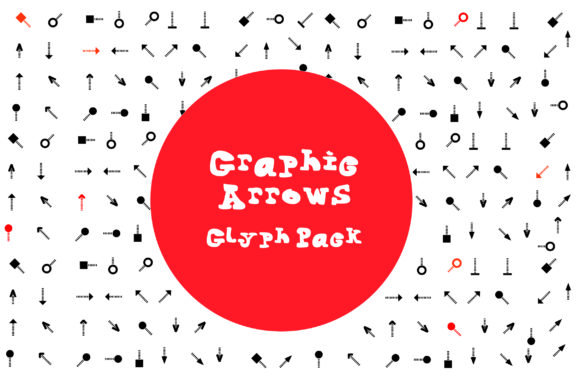
The Power of Visual Storytelling: Unlocking Design Potential
Have you ever stared at a blank page, waiting for that elusive spark of creativity to strike? The frustration is real, but what if you had the perfect tool to set your imagination ablaze? For designers, finding the right font can be the difference between a good design and a great one. That’s where BM Graphics – Graphic Arrows Glyph Font comes in – a game-changing dingbats font packed with an incredible array of arrows.
This unique font is more than just a collection of shapes; it’s a key to unlocking your design potential. With BM Graphics – Graphic Arrows Glyph Font, you’ll have access to a vast library of arrows that can add a touch of sophistication, whimsy, or playfulness to any project. Whether you’re working on a logo, infographic, or social media graphic, this font is sure to elevate your designs and make them stand out from the crowd.
BM Graphics – Graphic Arrows Glyph Font Key Features
- Character Set: 160+ unique graphic arrows and glyphs, including various styles, sizes, and orientations
- Unique Characteristics: Each glyph is carefully designed to provide a consistent and recognizable visual identity, making it perfect for logos, branding, and iconography
BM Graphics – Graphic Arrows Glyph Font Review
Overall, I’m quite impressed with BM Graphics – Graphic Arrows Glyph Font. The ✨ variety of arrow glyphs it offers is extensive, and the level of detail in each design is excellent. It’s clear that a lot of thought has gone into creating a cohesive set of icons that can be used in a wide range of contexts.
The font’s versatility is a major strength. I appreciate the fact that it includes not only standard arrows, but also more specialized glyphs like those with heads or tails. This makes it a great choice for designers who need to create visually appealing and informative graphics.
- Extensive variety of arrow glyphs
- High level of detail in each design
- Excellent versatility
- Includes standard and specialized glyphs
- Some glyphs may appear pixelated when scaled up
- Lack of customization options for color or size
Overall, BM Graphics – Graphic Arrows Glyph Font is a solid choice for designers who need a reliable and versatile set of arrow glyphs. While it may have some limitations, its strengths make it a worthwhile investment for any design project.
Use BM Graphics – Graphic Arrows Glyph Font to add visual interest to your designs, such as:
– Creating arrow-based graphics and illustrations
– Designing icons and logos
– Adding emphasis to text-based designs
For the best results, experiment with different font sizes, colors, and positions to find the perfect balance for your design.